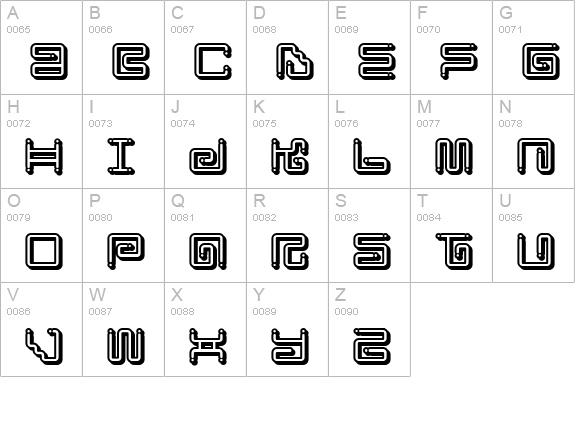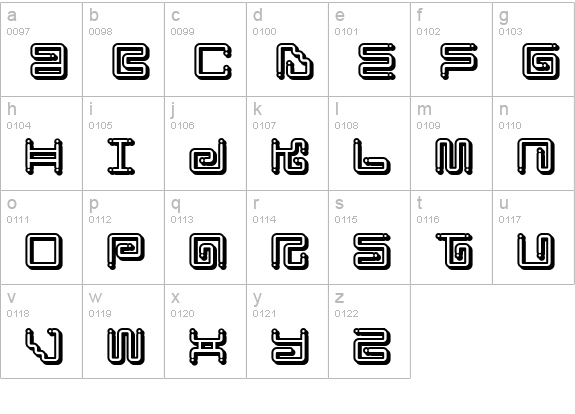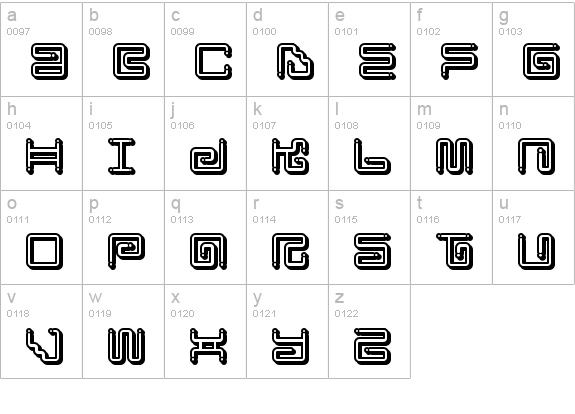
Introducing Iron Lounge Smart Dot font, a captivating and innovative typeface that is sure to make a lasting impression. With its modern and sleek design, this font effortlessly combines elegance with a touch of playfulness, making it perfect for a wide range of creative projects. What sets Iron Lounge Smart Dot font apart is not only its striking visual appeal but also the fact that it is completely free. Yes, you read that right - this remarkable font is available for download at no cost at FontsMarket.com. Whether you're a professional designer, a student, or simply someone looking to add a unique touch to your personal projects, Iron Lounge Smart Dot font is at your disposal, without any financial burden. Featuring a well-crafted collection of characters, Iron Lounge Smart Dot font is exceptionally versatile and can be used in various contexts. Its clean lines and carefully designed dots create a sense of precision and sophistication, making it suitable for both digital and print media. With Iron Lounge Smart Dot font, your designs will effortlessly stand out from the crowd. Whether you're creating logos, branding materials, posters, or social media graphics, this font's versatility allows it to adapt to any design concept, ensuring a cohesive and visually pleasing result. Moreover, Iron Lounge Smart Dot font is user-friendly and easy to work with. Its well-structured letters and legible composition make it a breeze to read, ensuring that your message is conveyed effortlessly to your audience. It is a font that not only catches the eye but also engages and captivates. So, if you're in search of a font that combines modernity, elegance, and playfulness, look no further than Iron Lounge Smart Dot. And the best part? It's available for free download exclusively at FontsMarket.com. Don't miss out on the opportunity to elevate your designs with this exceptional font. Get your hands on Iron Lounge Smart Dot font and let your creativity soar.